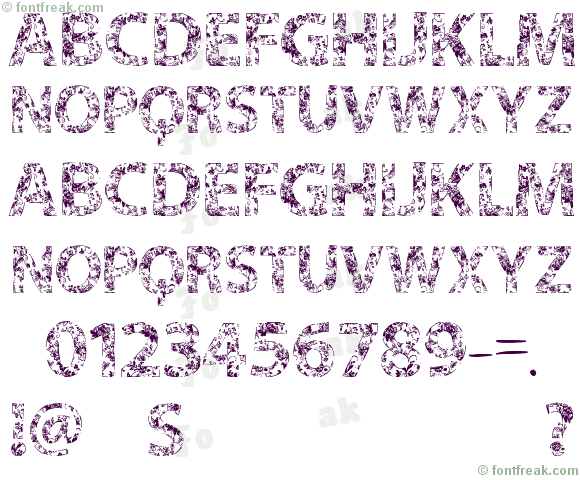
VTKS FLOWERS IN OUR SOUL
VTKS FLOWERS IN OUR SOUL is a unique decorative font designed by Douglas Vitkauskas, falling into the category of display typefaces. This font features an intricate design characterized by floral motifs seamlessly integrated into each letterform. The stroke weight varies, providing a sense of depth and dynamism, while the contrast between the bold elements and the delicate floral details creates a visually engaging experience. The spacing is well-balanced, allowing for readability while maintaining the whimsical nature of the design.
This font is particularly well-suited for a variety of creative applications. Its charming, nature-inspired aesthetic makes it an excellent choice for wedding invitations, where it can add a touch of elegance and romance. Additionally, VTKS FLOWERS IN OUR SOUL can be utilized in restaurant menus, especially those focusing on organic or garden-themed cuisine, where the floral elements resonate with the menu's concept. It also shines in event flyers and promotional materials for botanical gardens or floral shops, capturing the essence of their offerings. Moreover, content creators looking to add a distinctive flair to their social media graphics will find this font to be a perfect match.
What sets this font apart is its ability to blend artistry with functionality. The floral designs not only enhance the visual appeal but also evoke emotions associated with nature and beauty, making it a go-to choice for anyone looking to create something memorable and visually stunning.